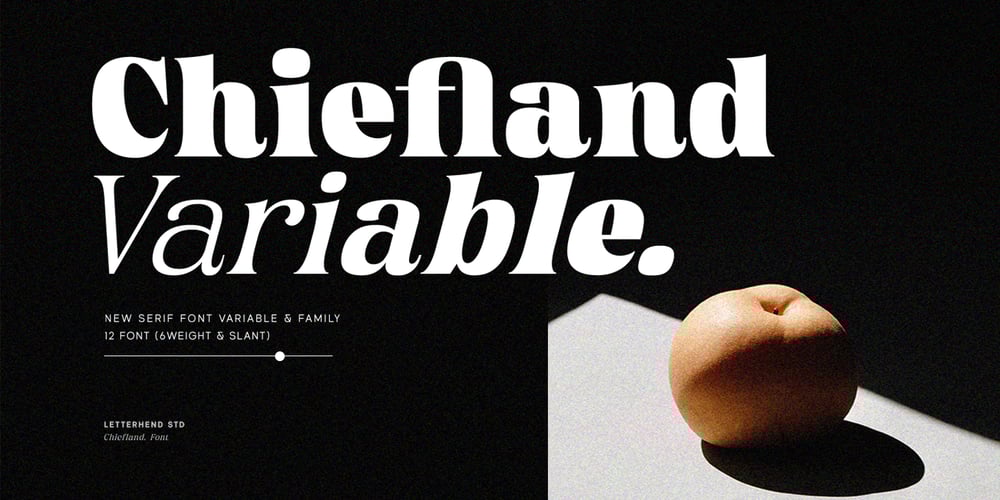
Chiefland Font Family was designed by Hendry Juanda and published by Letterhend. Chiefland contains 12 styles and family package options. Garetra Serif s a sophisticated variable serif font with with many weight you can choose. It has 12 weight styles which you can play around to match your project, whether for a standout headline, or for a tagline, you name it. Perfect to be applied to the other various formal forms such as invitations, labels, logos, magazines, books, greeting / wedding cards, packaging, fashion, make up, stationery, novels, labels or any type of advertising purpose.Features :variable font with 6 weight style regular and slant uppercase & lowercase numbers and punctuation multilingual alternates & ligatures PUA encoded We highly recommend using a program that supports OpenType features and Glyphs panels like many of Adobe apps and Corel Draw, so you can see and access all Glyph variations.